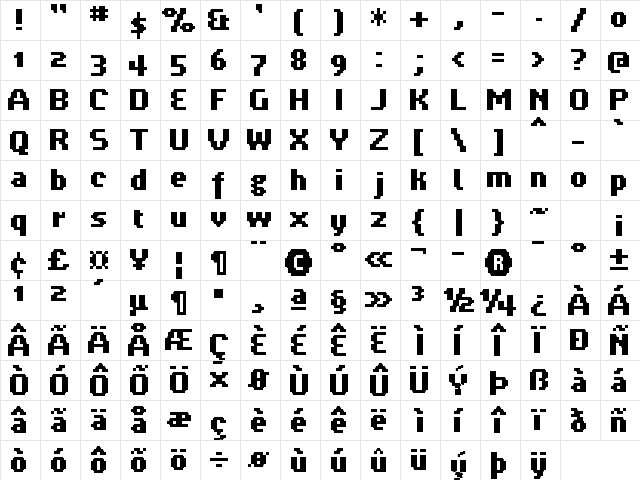
UF PT Bossa Bold Regular
Foundry: Ultrafonts
Designer: Hugo Perez of PixieType
Design Context for UF PT Bossa Bold
UF PT Bossa Bold is a composed and adaptable typeface that performs quietly and consistently across a wide range of design contexts. Its bold stroke weight gives it real presence on the page.